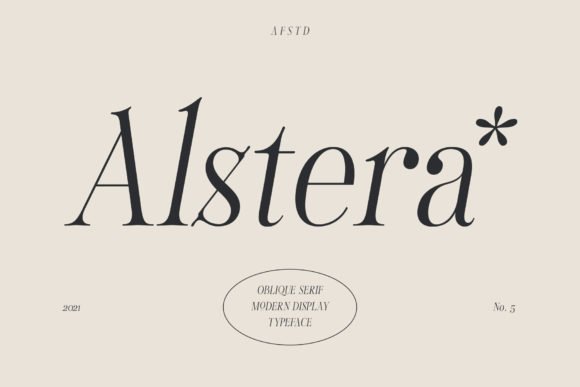
Introduction to Alstera Oblique Font
Alstera Oblique is an elegant and distinct serif font.
It is PUA encoded which means you can access all of the glyphs and swashes with ease It maintains its classy calligraphic influences while feeling contemporary and fresh.
Key Features of Alstera Oblique Font